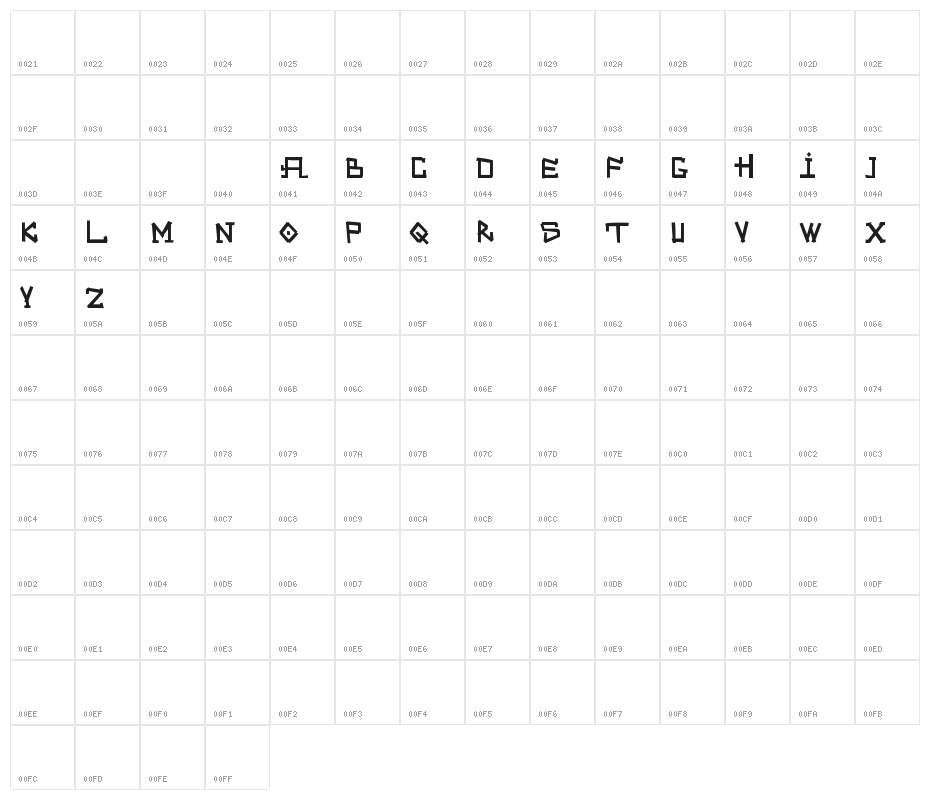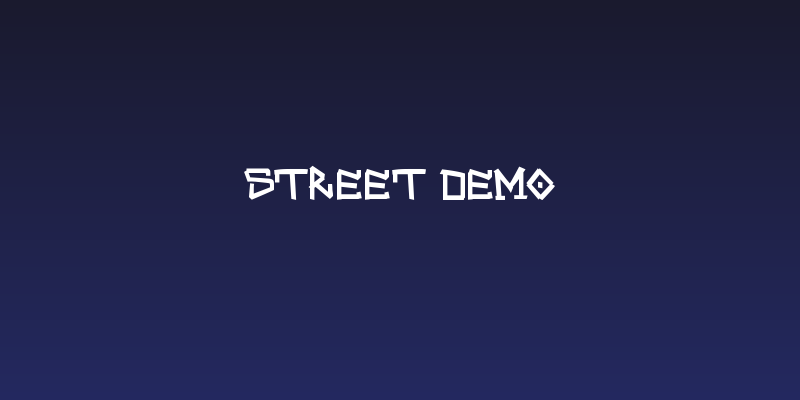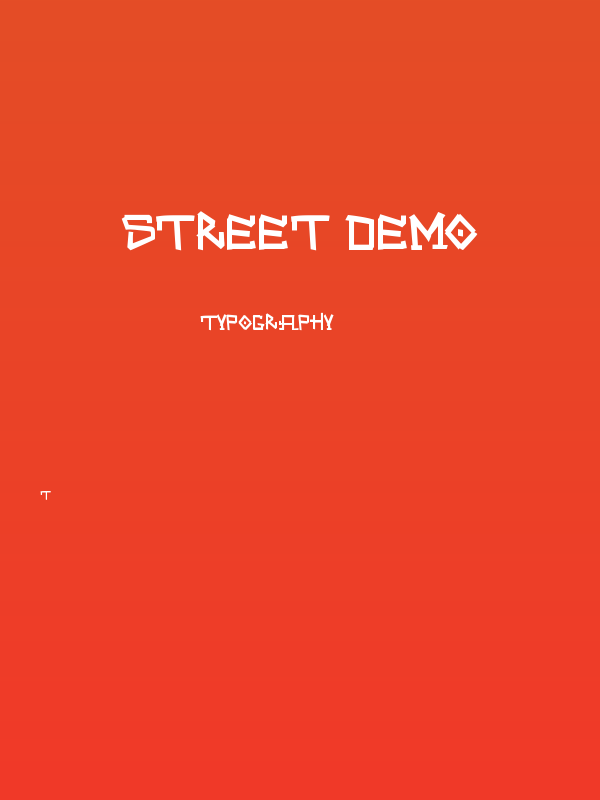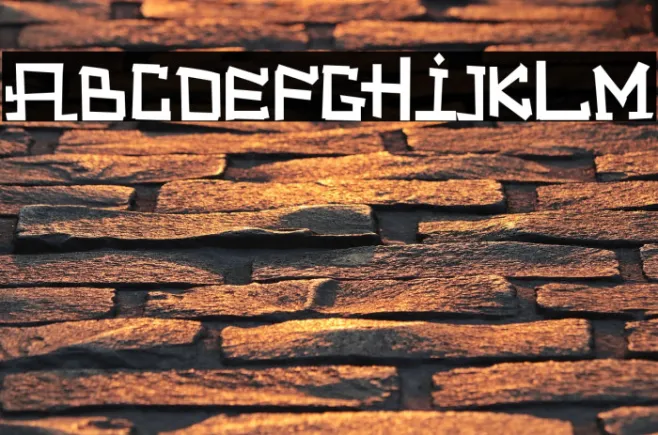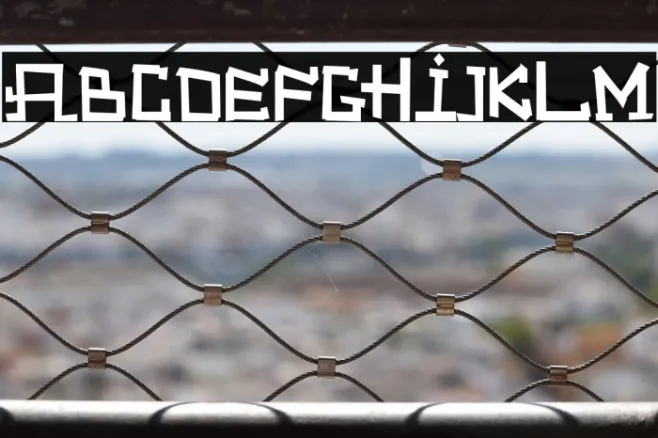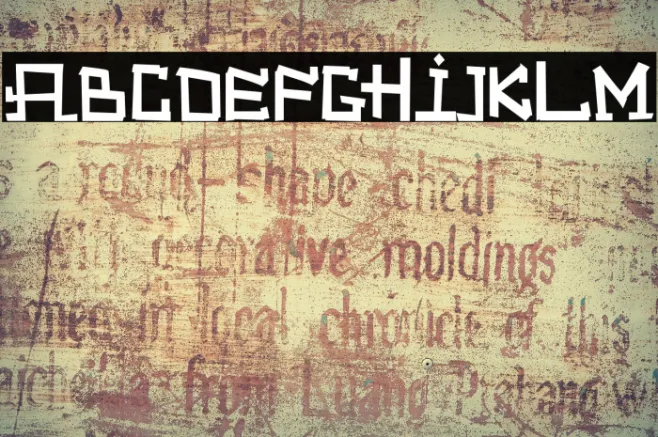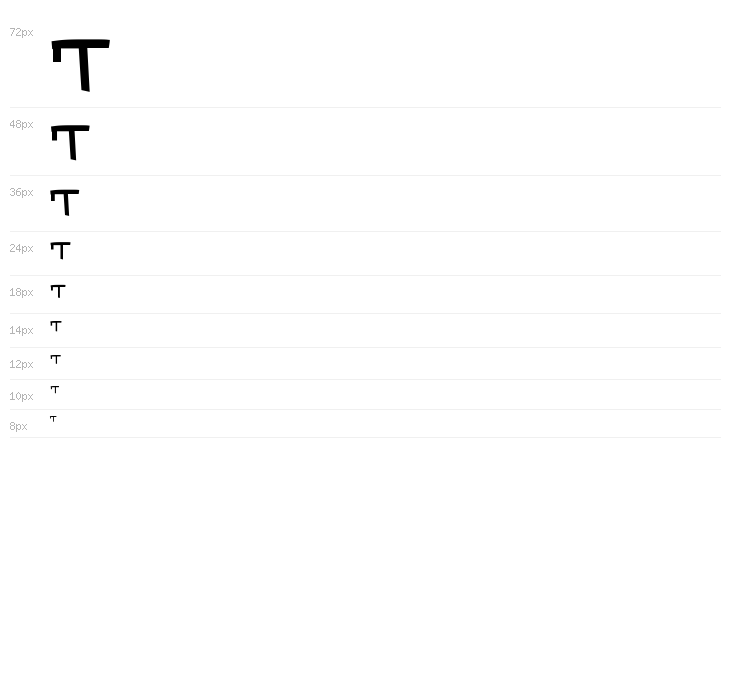
STREET demo Font
STREET demo Description
This font features a bold and edgy design with a distinctly urban and graffiti-inspired aesthetic. The characters are angular and geometric, with sharp edges and a dynamic, energetic feel. The uppercase letters are particularly striking, with unique embellishments that add to the street art vibe. The font's style is both modern and rebellious, making it ideal for projects that require a bold statement. Its distinctive appearance is perfect for capturing attention and conveying a sense of movement and creativity.
| Overall Style | Modern, Urban, Edgy |
| Proposed Projects | Ideal for street art designs, urban-themed posters, music album covers, and edgy branding projects. |